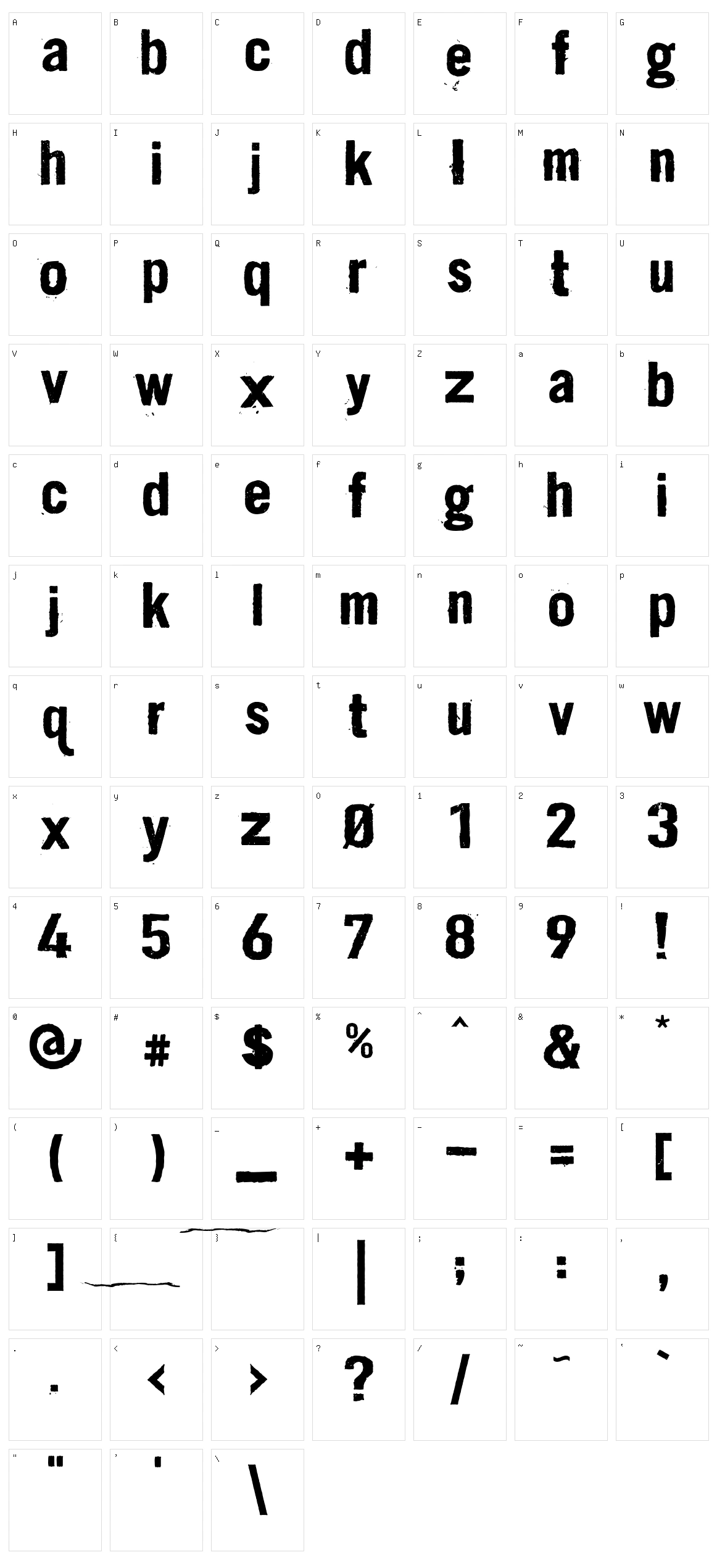
A bit about this font:
Dirt2 Stickler was based off some garbage I found, it also features missing custom characters. The whole font has a medium-quality texture to it, rough edges and some soft grunge textures through out. The new version for July 2012 includes accents and some new letters among other changes.